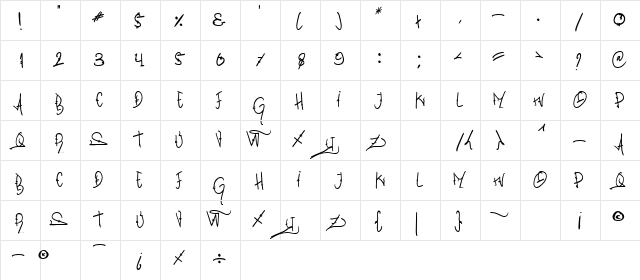
Street Of Zeus Regular
| Designer | Rama, Memet, Sipanji |
Design Context for Street Of Zeus Typeface
Street Of Zeus is a composed and adaptable typeface that performs quietly and consistently across a wide range of design contexts.